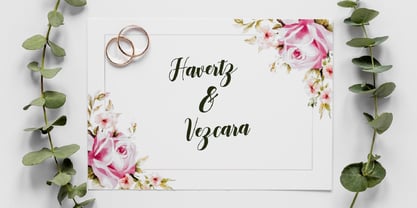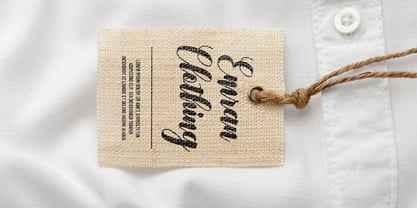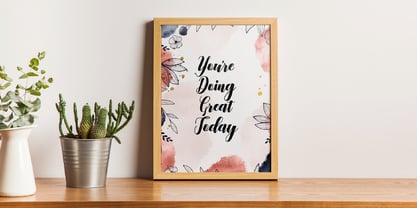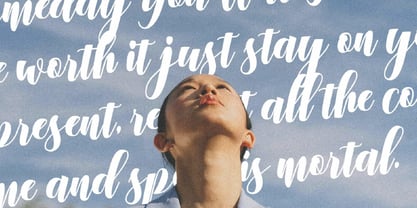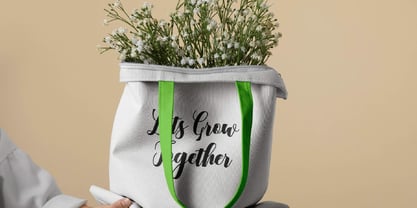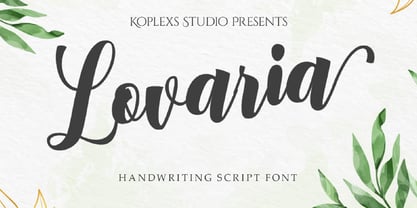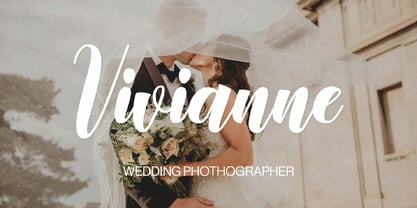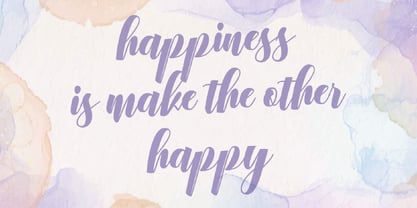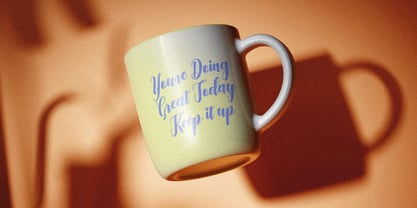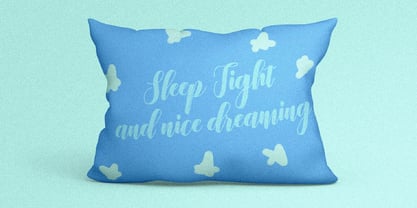
Lovaria
by Koplexs Studio
The Lovaria Font Family was designed by Ahmad Muslimin and published by Koplexs Studio. Lovaria contains 1 styles. More about this family
Lovaria Font is a graceful and elegant Handwritten Script Font designed to bring sophistication and personality into every creative project. Inspired by natural handwriting and refined calligraphy strokes, this typeface combines the beauty of a Signature Font with the timeless charm of a Cursive Font. Its flowing letterforms and balanced curves create a luxurious and modern appearance, making it ideal for designers who want a stylish yet professional typography solution.
Carefully crafted with attention to detail, Lovaria works beautifully as a Wedding Font, Branding Font, Logo Font, Cosmetic Font, and Aesthetic Font. Whether you are designing wedding invitations, beauty product packaging, fashion branding, social media templates, or elegant stationery, this versatile Calligraphy Font adapts effortlessly to both digital and print projects. The clean readability paired with artistic strokes makes Lovaria suitable for premium branding and creative typography needs.
Lovaria Font is perfect for businesses, creators, and designers looking for a modern typeface with a luxury feel. Its elegant style enhances logos, photography watermarks, product labels, greeting cards, website headers, and lifestyle branding. Add a touch of timeless beauty and modern sophistication to your designs with Lovaria Font and create visuals that leave a lasting impression.